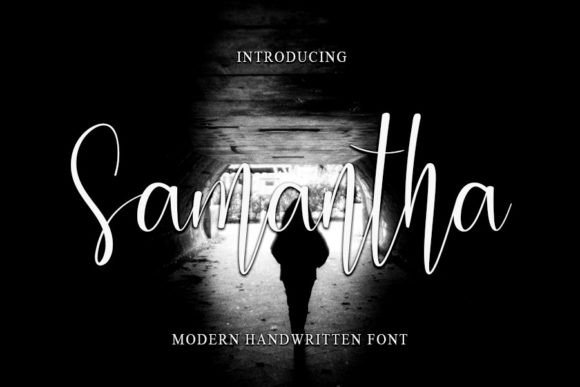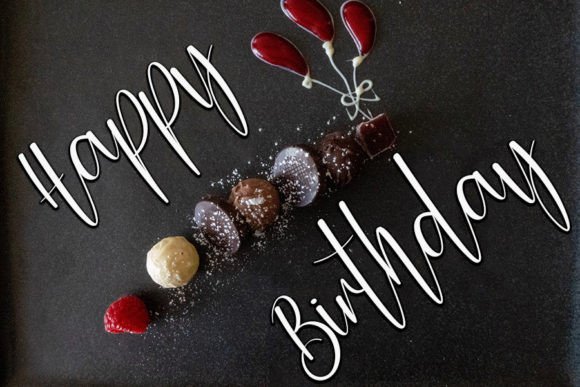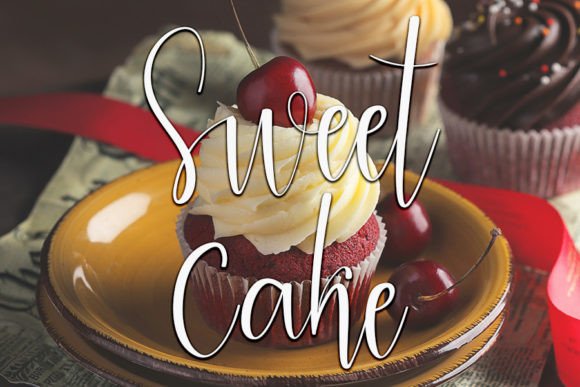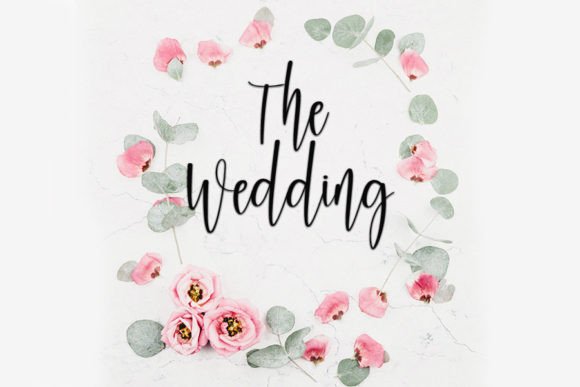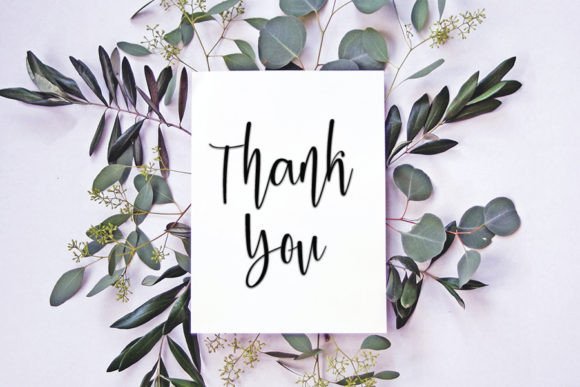
About Samantha Font
The Samantha Font Download is a neat and elegant handwritten typeface designed to bring sophistication and timeless style to your projects. With its graceful strokes and clean details, Samantha delivers a professional handwritten look that is both approachable and refined. This makes it an excellent choice for designers seeking a font that conveys elegance without losing readability.
Whether you’re creating wedding invitations, thank you cards, or stylish logos, Samantha adapts effortlessly, giving every project a polished finish. Its flowing design captures the beauty of classic calligraphy while maintaining a modern handwritten appeal.
Features of Samantha Font
By choosing the Samantha Font Download, you gain access to a typeface with:
Elegant handwritten script style with timeless charm
Smooth, neat letterforms for maximum readability
Graceful curves and flowing lines that add a personal touch
Versatility across both print and digital applications
Timeless design that complements modern and classic layouts
These features make Samantha a reliable and creative choice for a wide variety of projects.
Best Uses for Samantha Font
The Samantha Font Download can enhance numerous design applications, such as:
Wedding invitations and stationery – Add romance and elegance to your special day
Logos and branding – Perfect for fashion, boutique, and lifestyle businesses
Greeting and thank you cards – Create stylish, heartfelt notes
Event promotions – Posters and flyers with an elegant handwritten touch
Social media graphics – Stand out with graceful, timeless posts
DIY projects and crafts – A neat, personal touch for handmade designs
No matter the context, Samantha adapts beautifully to ensure your designs look refined and visually appealing.
Why Choose Samantha Font
The Samantha Font Download is more than just another handwritten script—it’s a design tool that combines beauty with usability. Unlike many fonts that sacrifice readability for style, Samantha achieves the perfect balance, offering both elegance and clarity.
Designers love its timeless appeal, making it a great choice for both personal and professional work. Whether used in delicate wedding stationery or bold branding materials, Samantha brings sophistication to every design it touches.
The Samantha Font Download is a neat, elegant handwritten script that adds timeless beauty to your projects. With its smooth curves, versatile applications, and refined strokes, it’s ideal for invitations, logos, social media graphics, and more.